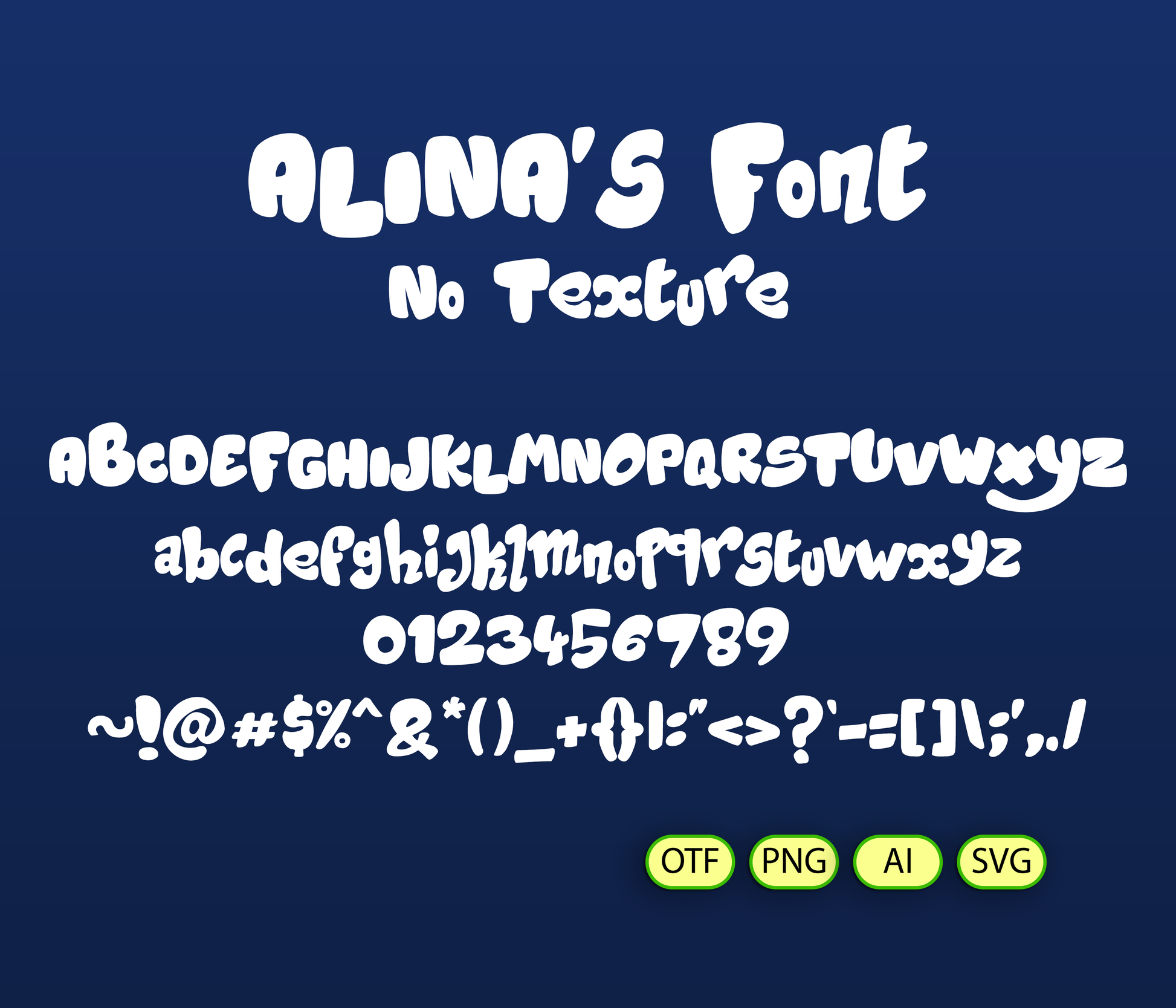
Aussie Pup Playhouse Font
Dive into the colorful world of animated canine adventures with our specially crafted font. This typeface captures the essence of a beloved Australian cartoon series, known for its heartwarming family stories and playful pups. Perfect for children's party planners, educators, and fans of wholesome entertainment, this font brings the joyful, energetic spirit of the Blue Heeler family to your creative projects.
What font is the Aussie Pup Playhouse font?
Envision a typeface that embodies the fun and friendly nature of the cartoon's main character - bouncy, rounded, and bursting with energy. Our font features playful, curvy letterforms that mirror the lively antics of the animated dogs, complete with subtle nods to Australian elements. It includes a comprehensive character set with alphabets, numbers, and special symbols, providing a versatile solution for various design needs.
What You Can Do With Aussie Pup Playhouse Textured Font
This versatile font is ideal for a range of creative applications:
1. Birthday Party Invitations: Create cheerful invites for children's celebrations
2. Educational Materials: Design engaging worksheets and learning resources for young students
3. Digital Content: Enhance blogs and social media posts about parenting and family activities
4. Merchandise Design: Perfect for creating t-shirts, backpacks, and toys for young fans
5. Event Decorations: Develop banners, posters, and signage for family-friendly events
6. Children's Book Titles: Use for eye-catching book covers and chapter headings
7. Animated Video Graphics: Incorporate into title sequences or lower thirds for kids' content
8. Playroom Decor: Design wall art and custom decorations for children's spaces
• Extensive Character Set: Offers a wide range of characters for complete design flexibility